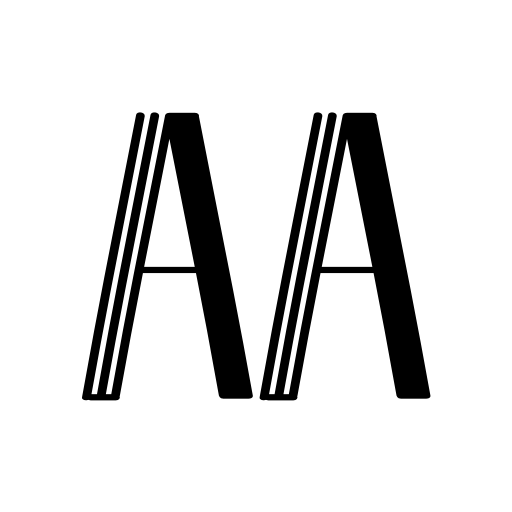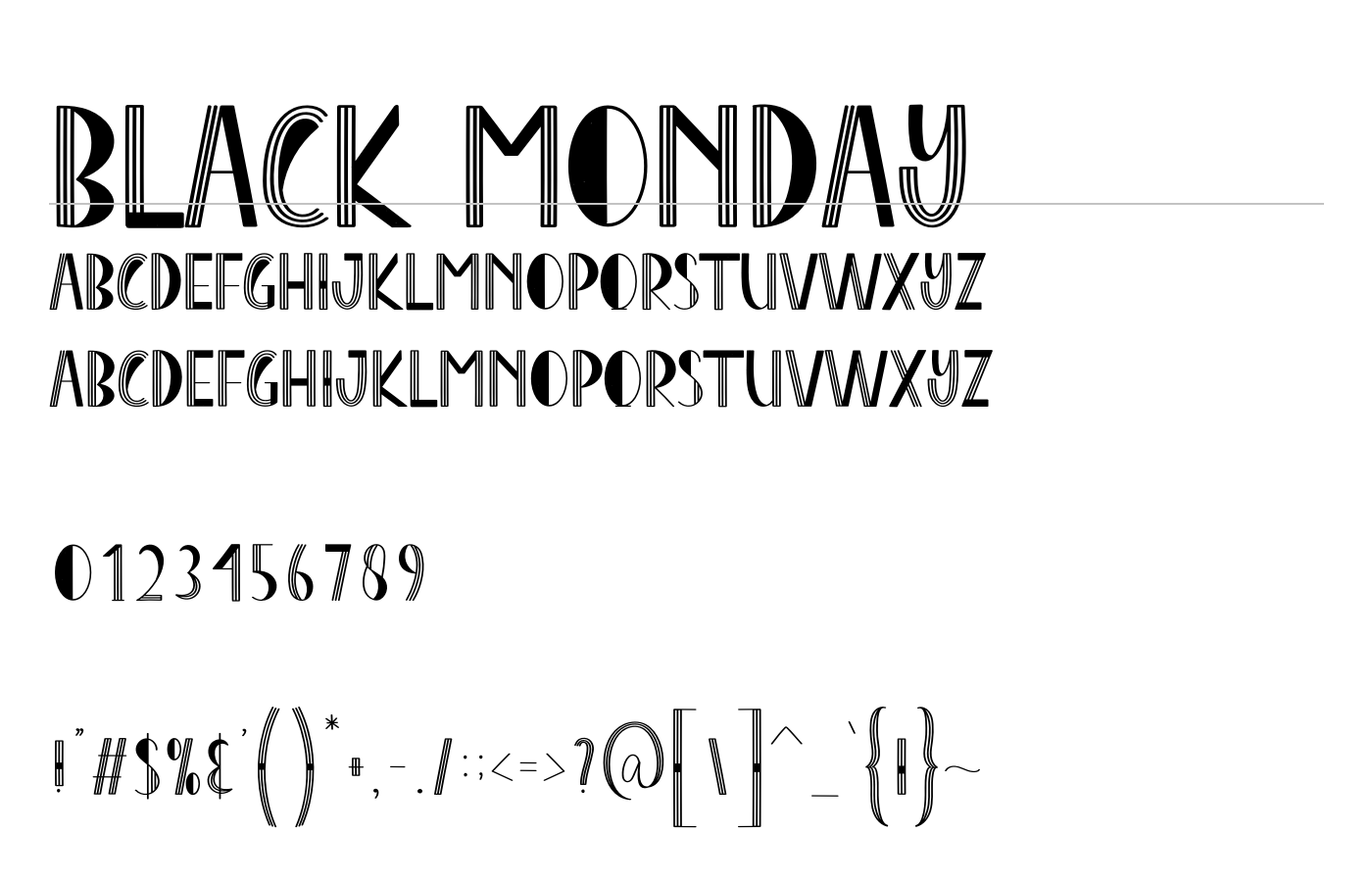
Black Monday is a striking, narrow sans serif font with a strong Art Deco influence, characterized by geometric shapes and a high contrast between thick and thin lines. Its elegant, decorative style with unique letterforms and numbers makes it perfect for eye-catching headlines, logos, and branding projects that seek a vintage yet modern flair. This font adds a bold, sophisticated personality to fashion, poster, or editorial designs where a memorable impact is needed.
Black Monday Font
About Black Monday Font